Optical Corrections
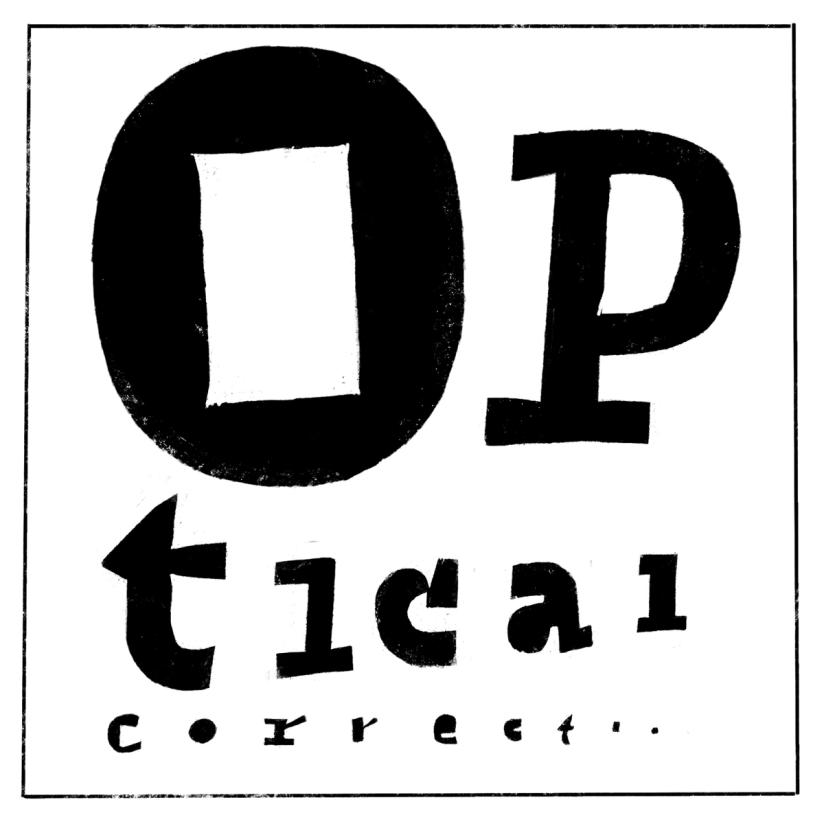
The shapes used to form the words and texts we read are seen by our eyes. And our eyes and brain are organs that don’t rely on geometry, rulers, and compasses to “read” the world.
Even if they are geometrically aligned, some shapes may appear uneven and require optical adjustments to appear consistent. In type design, we talk about optical corrections.